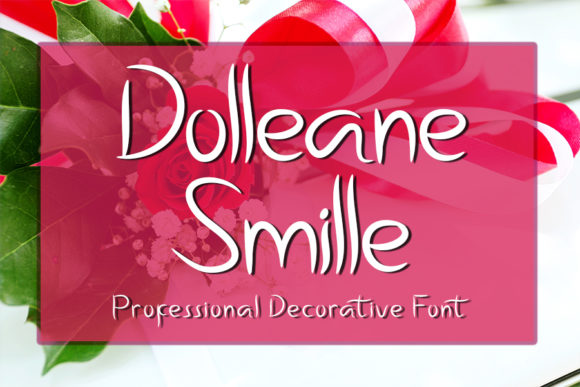
Dolleane Smille: Elegant Script Font Review
Introduction to the Dolleane Smille Font Download
In the vast landscape of typography, finding a typeface that balances vintage charm with modern readability is a rare discovery. Dolleane Smille feels equally charming and elegant, offering designers a stunning handwritten font that serves as a stylish homage to classic calligraphy. For creatives searching for a Dolleane Smille free download to test in their latest mockups, this typeface provides an immediate upgrade to visual aesthetics. It stands out in the crowded Script Handwritten category because it avoids the overly distressed look common in freebies, instead opting for refined strokes that suggest luxury and intention.
Whether you are looking to download Dolleane Smille font free for personal experimentation or evaluating it for a client project, understanding its nuances is essential. This font elevates a wide range of design projects to the highest level, bridging the gap between casual handwriting and formal script. Its unique character set and fluid connections make it a top contender for designers who need a premium Script Handwritten font aesthetic without always requiring a premium price tag for initial concepting.
Design and Style Analysis of Dolleane Smille
To truly appreciate this typeface, one must look beyond the surface. Dolleane Smille is not merely a collection of glyphs; it is a study in rhythmic consistency. When analyzing Dolleane Smille vs similar font options like Great Vibes or Allura, the distinction lies in its weight distribution. Where many scripts suffer from spindly upstrokes that disappear on screen, Dolleane Smille maintains a confident line thickness that ensures legibility across various media.
Letterform Anatomy and Flow
The capital letters in Dolleane Smille feature elaborate swashes that act as natural frames for text blocks. These flourishes are integrated organically rather than appearing as afterthoughts. The lowercase characters exhibit a slight rightward slant, mimicking the natural motion of a right-handed pen holder. This anatomical accuracy is what classifies it as a professional Fonts font capable of withstanding scrutiny in high-resolution print environments.
Spacing and Kerning Precision
A common failure in the free Script Handwritten font for Fonts niche is poor kerning. Dolleane Smille addresses this with meticulously adjusted spacing that prevents letters from colliding or drifting too far apart. This attention to detail reduces the manual adjustment time required in software like Illustrator or InDesign, making it a practical choice for tight deadlines.
Best Uses for Dolleane Smille in Design Projects
Versatility is the hallmark of any great typeface. Below are specific applications where this font excels, demonstrating why it is among the best Script Handwritten fonts for use case scenarios involving elegance and warmth.
Dolleane Smille for Wedding Invitations and Typography
Wedding stationery demands a tone of timeless romance. Dolleane Smille for wedding invitations/cards/typography works exceptionally well because its loops are open and airy, preventing the dense, dark texture that can make invitation suites feel heavy. When paired with a crisp cotton paper stock, the font’s delicate lines evoke traditional engraving techniques at a fraction of the cost.
Dolleane Smille for Logo Design and Brand Identity
Creating a wordmark requires a font that remains distinct even when scaled down. Dolleane Smille for logo design offers enough personality to serve as a standalone brand mark for boutiques, bakeries, and lifestyle influencers. The connecting strokes create a unified shape that holds together visually, which is crucial for favicon adaptation and social media profile pictures.
Dolleane Smille for Posters and Social Media Graphics
Digital content moves fast, and typography must capture attention instantly. Using Dolleane Smille for posters/social media/packaging allows designers to overlay text on photography without sacrificing readability. The font’s inherent contrast makes it pop against both light and dark backgrounds, provided there is sufficient negative space around the letterforms.
Font Pairing Strategies and Combinations
A script font never exists in isolation. Designers frequently ask what fonts pair well with Dolleane Smille to create a balanced hierarchy. The key is contrast; because Dolleane Smille is ornate, its partner should be structured and understated.
Classic Serif Pairings
For a traditional editorial look, combine Dolleane Smille with a transitional serif like Playfair Display or Merriweather. This Dolleane Smille font pairing reinforces the vintage inspiration while ensuring body copy remains highly readable. The serif anchors the page, allowing the script to float as a decorative accent.
Modern Sans-Serif Contrasts